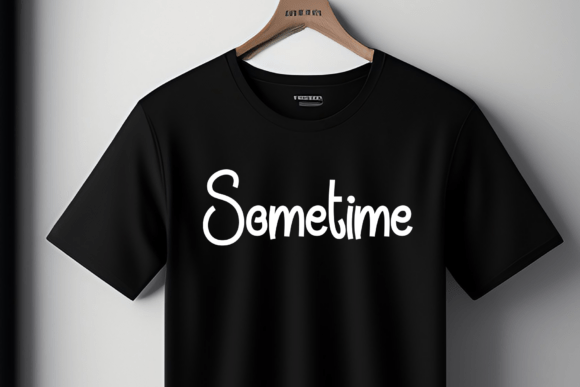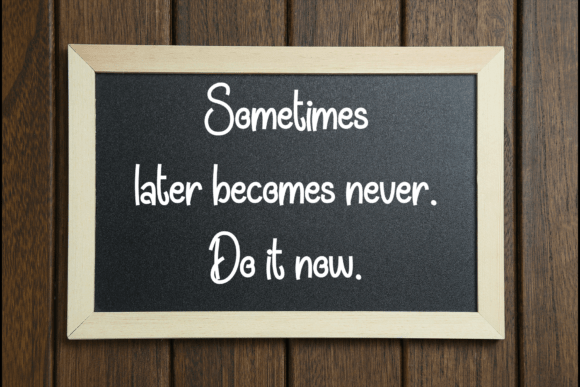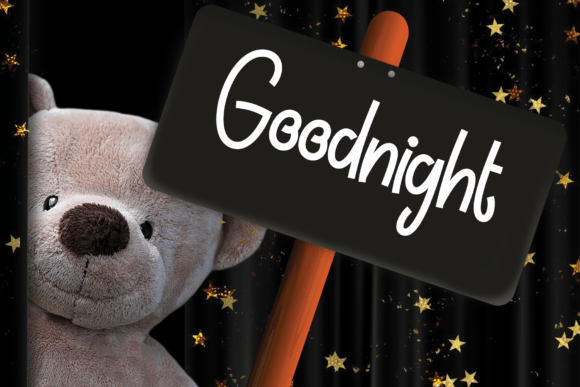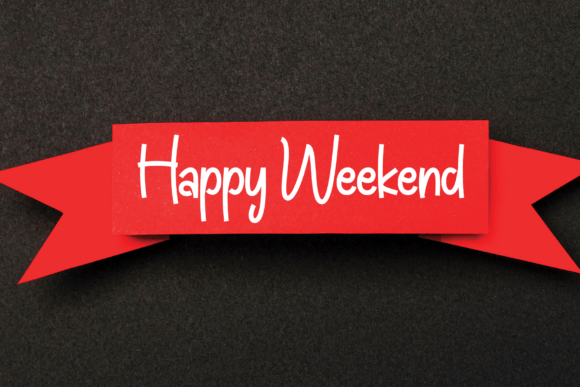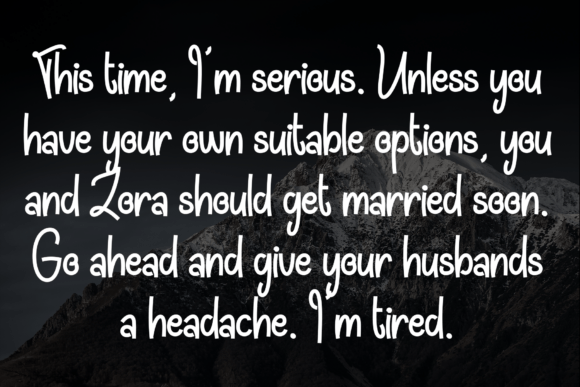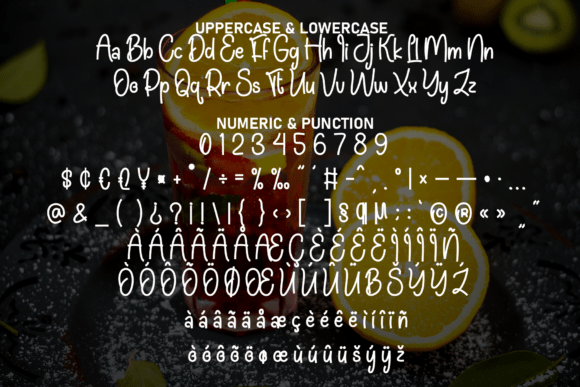
Discover the Charming Black Lemonade Font: Add a Touch of Whimsy to Your Designs
Are you looking for a font that can add a dash of warmth and personality to your designs? Look no further than the Black Lemonade Font, a sweet and amicable display typeface that is perfect for crafting personalized and eye-catching creations. With its endearing charm and handwritten appeal, this font is ideal for designers and crafters who want to add a touch of whimsy to their work.
The Perfect Font for Personalized Designs
The Black Lemonade Font is designed to bring a sense of warmth and friendliness to your designs. Its handwritten style is reminiscent of a charming note written with love, making it perfect for crafting personalized wedding invites, affectionate cards, and other designs that require a touch of elegance and whimsy. Whether you’re a designer, crafter, or DIY enthusiast, this font is sure to become a favorite in your collection.
Key Features of the Black Lemonade Font
- Handwritten appeal: The Black Lemonade Font boasts a beautiful, handwritten style that adds a touch of personality to your designs.
- Sweet and amicable: This font is designed to be friendly and approachable, making it perfect for designs that require a warm and inviting tone.
- Display typeface: The Black Lemonade Font is a display typeface, making it perfect for headlines, titles, and other design elements that require a bold and eye-catching font.
- Whimsical and playful: This font has a playful and whimsical feel, making it perfect for designs that require a touch of fun and personality.
Uses for the Black Lemonade Font
The Black Lemonade Font is versatile and can be used for a variety of design projects, including:
- Wedding invites: Add a touch of elegance and whimsy to your wedding invites with this beautiful font.
- Cards and invitations: Use the Black Lemonade Font to create personalized and eye-catching cards and invitations for any occasion.
- Signs and posters: This font is perfect for creating signs and posters that require a bold and eye-catching headline.
- Digital designs: The Black Lemonade Font can be used for digital designs, such as social media graphics, blog posts, and email newsletters.
Why Choose the Black Lemonade Font?
There are many fonts available that can add a touch of elegance and sophistication to your designs. However, the Black Lemonade Font stands out for its unique and charming handwritten style. Here are a few reasons why you should choose this font for your next design project:
- Unique and eye-catching: The Black Lemonade Font has a unique and eye-catching style that will set your designs apart from the rest.
- Easy to read: Despite its playful and whimsical feel, the Black Lemonade Font is easy to read and can be used for both headings and body text.
- Versatile: This font can be used for a variety of design projects, from wedding invites to digital designs.
Tips for Using the Black Lemonade Font
Here are a few tips for using the Black Lemonade Font in your designs:
- Use it sparingly: The Black Lemonade Font is a bold and eye-catching font, so use it sparingly to avoid overwhelming your design.
- Pair it with other fonts: This font pairs well with other fonts, such as sans-serif fonts, to create a unique and visually appealing design.
- Experiment with colors: The Black Lemonade Font looks great in a variety of colors, so experiment with different colors to find the one that works best for your design.
The Black Lemonade Font is a charming and versatile font that can add a touch of whimsy and personality to your designs. With its handwritten appeal and sweet and amicable style, this font is perfect for designers and crafters who want to create personalized and eye-catching creations. Whether you’re designing wedding invites, cards, or digital designs, the Black Lemonade Font is sure to become a favorite in your collection.